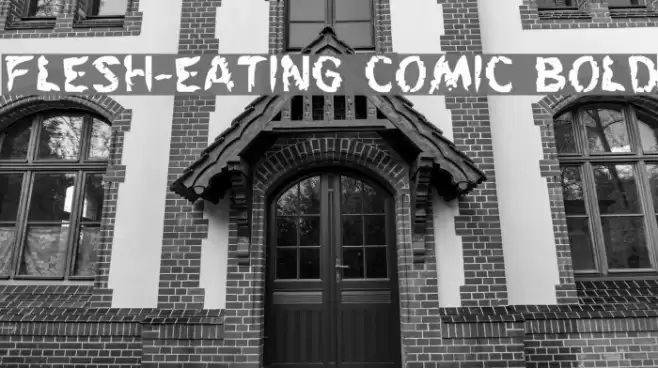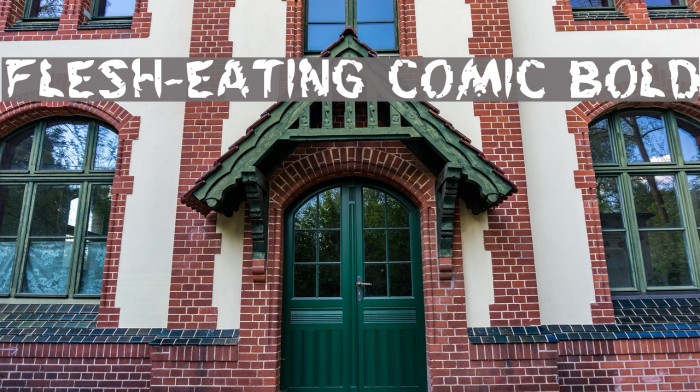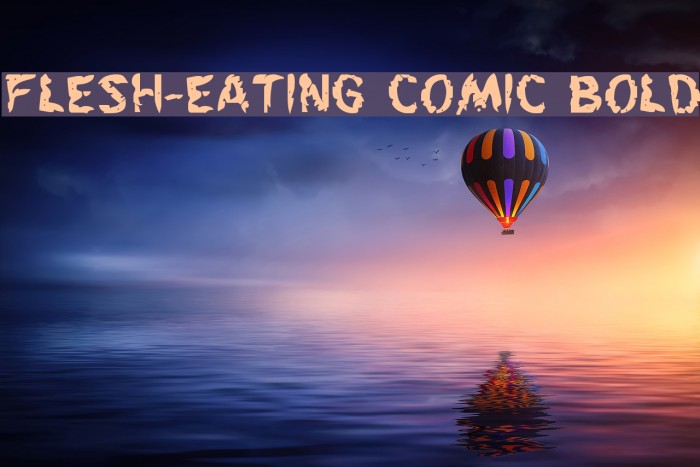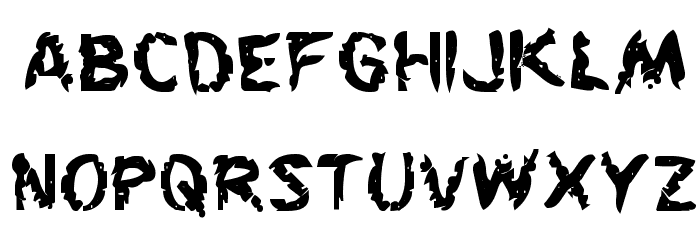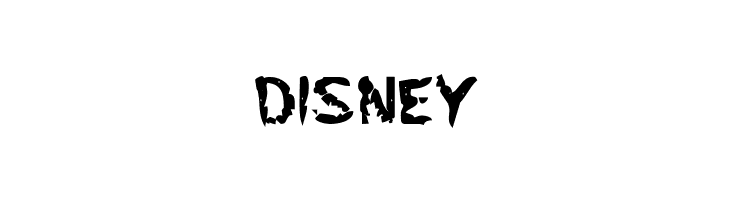
Flesh-Eating Comic Bold Font
Flesh-Eating Comic Bold Description
This bold and striking font features a unique, distressed appearance reminiscent of decaying or eroded surfaces. Each character is designed with irregular edges and a rough texture, giving it a dynamic and edgy feel. The font maintains a consistent weight throughout, with thick strokes that enhance its boldness. Its unconventional style makes it stand out, capturing attention with its dramatic and somewhat chaotic aesthetic. The font is well-suited for creative projects that require a touch of horror or a gritty, rebellious vibe.
A bold, distressed font with a rough, eroded appearance from Uncategorized fonts.
- Proposed Projects: Ideal for horror-themed posters, edgy graphic designs, Halloween invitations, and album covers.